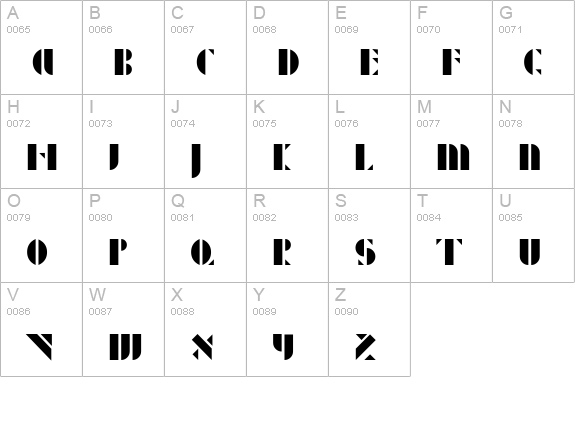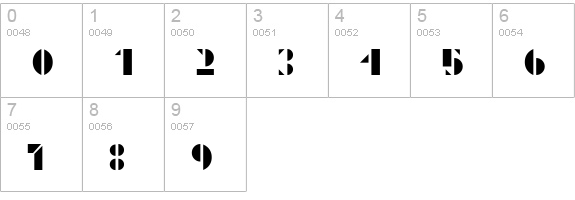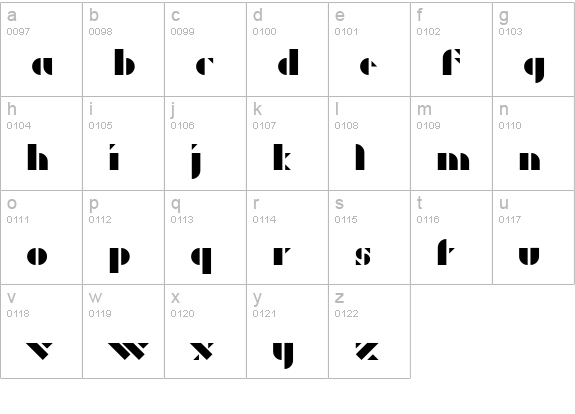
P22 Albers Three Font Details
P22 Albers Three font is a captivating typeface that embodies the timeless elegance of geometric letterforms. Designed by the renowned typographer, Josef Albers, this font offers a harmonious blend of clean lines, precise angles, and balanced proportions. With its simple yet sophisticated design, P22 Albers Three font exudes a sense of modernity and versatility that makes it suitable for a wide range of creative projects. Whether it's for branding, editorial design, or advertising, this font effortlessly adds a touch of refinement to any composition. One of the most remarkable aspects of P22 Albers Three font is its ability to convey a sense of order and balance, while still allowing for creative expression. The carefully crafted letterforms ensure legibility and readability, while the subtle variations in stroke width add a subtle dynamic quality to the overall appearance. What sets P22 Albers Three font apart is the fact that it is freely available to download at FontsMarket.com. This means that designers and creatives can easily access and utilize this remarkable typeface in their projects, without any financial constraints. The availability of this font for free enables aspiring designers and students to experiment and explore the vast possibilities this font offers, without having to invest in expensive licenses. Whether you are a professional designer looking to enhance your typographic arsenal or a student eager to explore the world of typography, P22 Albers Three font is a valuable addition to your collection. Its timeless appeal, versatility, and the fact that it is freely available make it a must-have for any design enthusiast. So, go ahead and download P22 Albers Three font from FontsMarket.com today, and let your creativity soar.